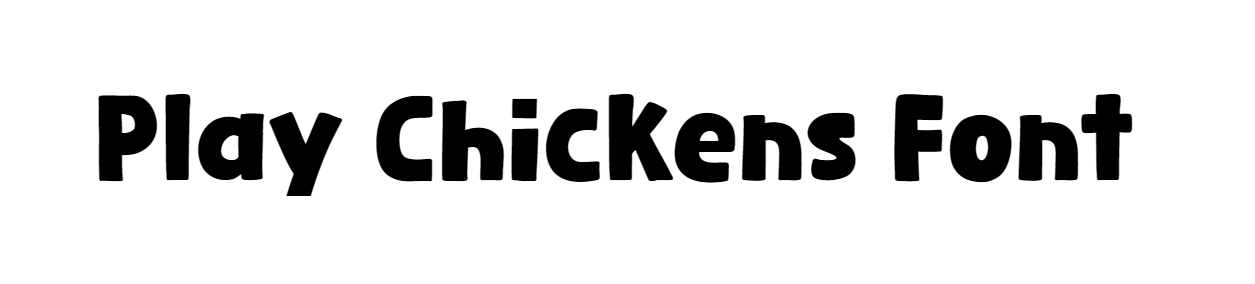
Play Chickens
Play Chickens is a cartoon font made by Khurasan (2024). It has a cheerful, hand-drawn look that makes people smile before they even read the words. You can download it for free and test it with your own words in the preview above.
Play Chickens covers the full alphabet in upper and lowercase, plus all ten numbers, so you can set names, dates and prices without switching fonts. Common punctuation such as &, !, ? and @ is included as well. It doesn't include accented letters such as é or ñ, which makes it an English-only font.
Play Chickens is a natural fit for kids' books, birthday invites and fun YouTube thumbnails. Cartoon fonts are great for short, fun lines. If you place it over a busy photo, add a thick outline or a drop shadow so it stays readable.
Who designed Play Chickens font?
Does Play Chickens support accented letters?
No. Play Chickens has no accented letters such as é, ñ or ü, so it's best for English text.